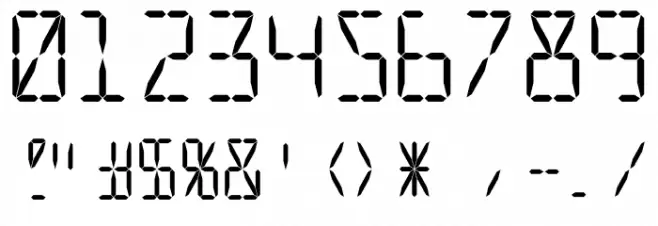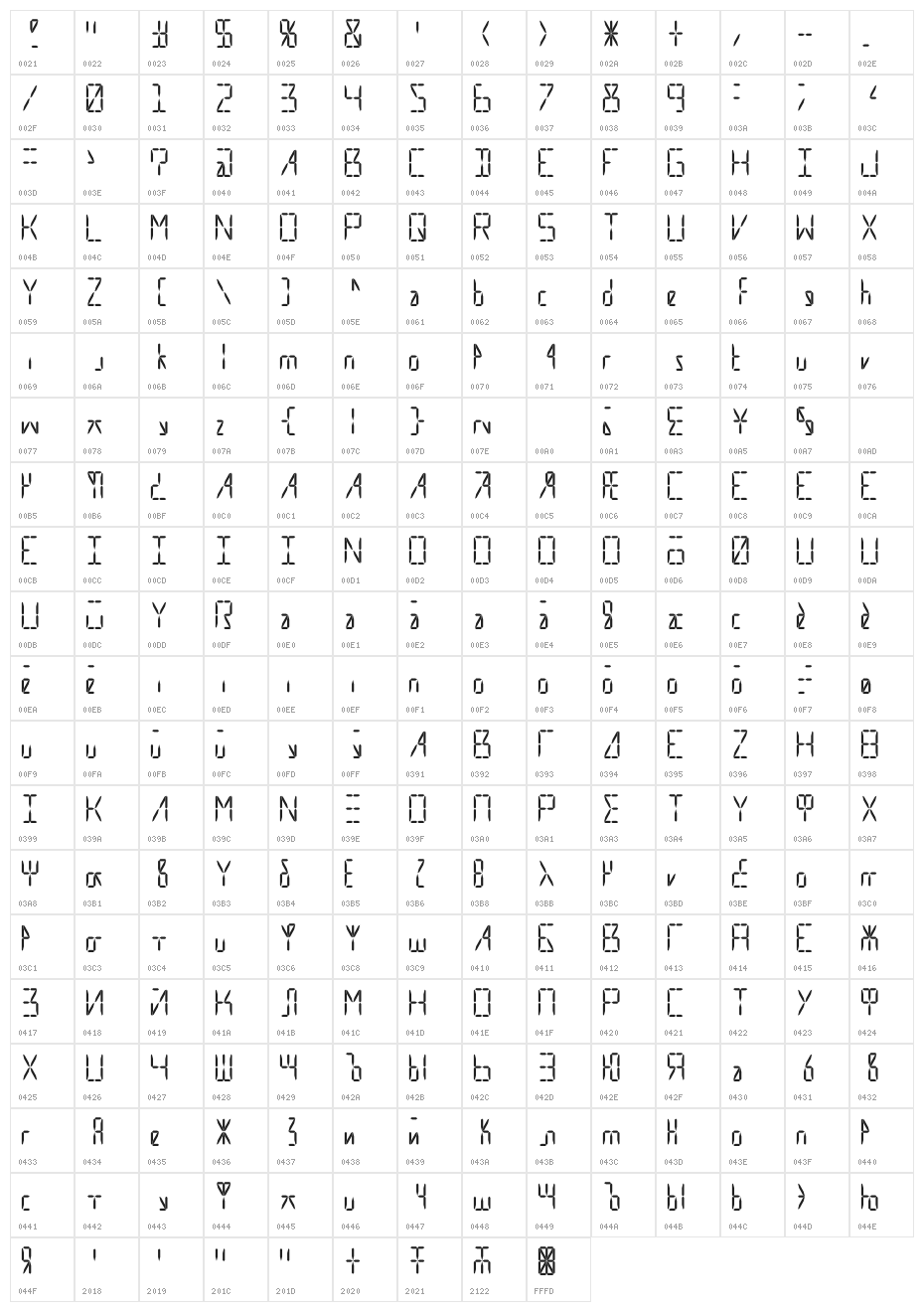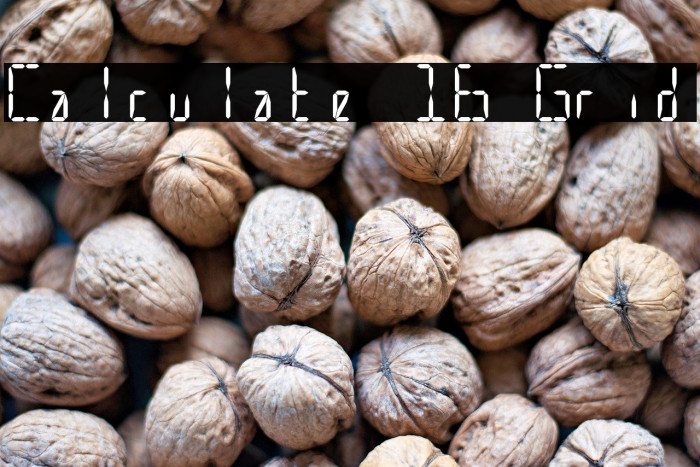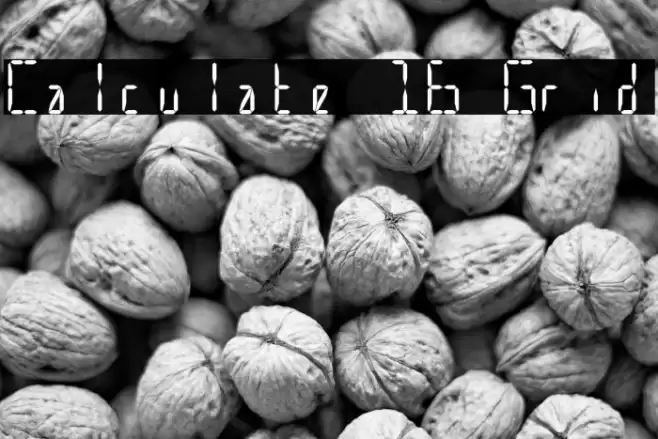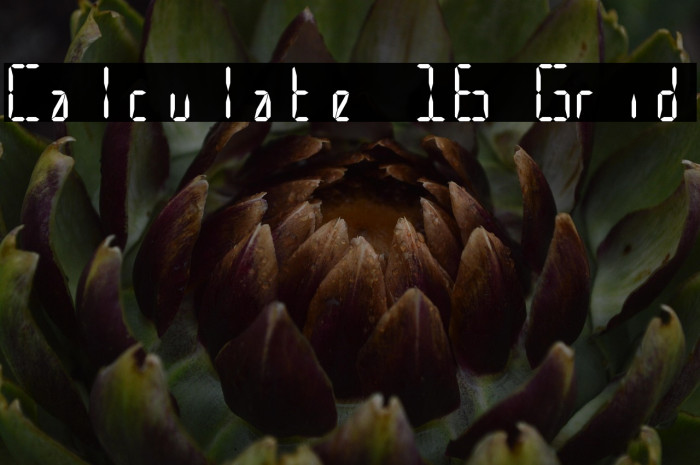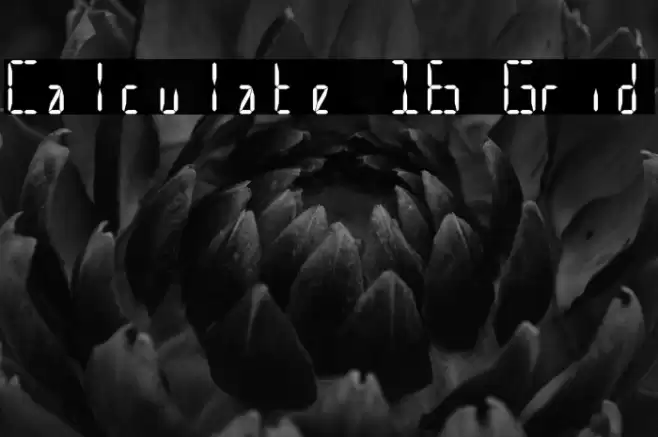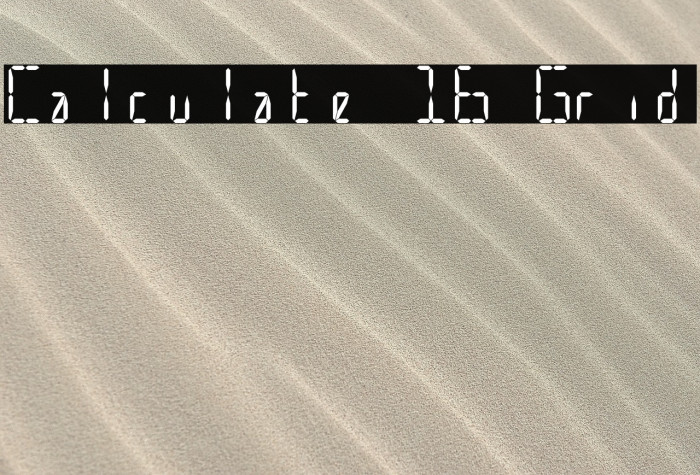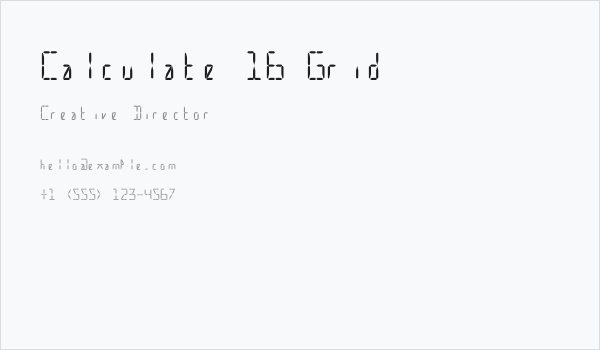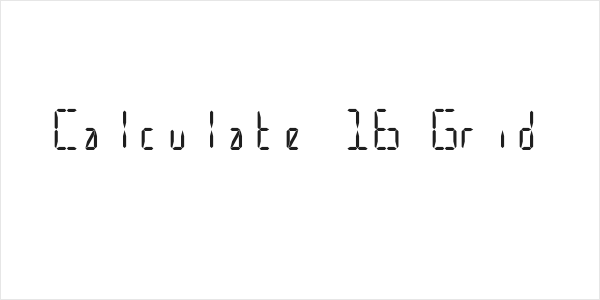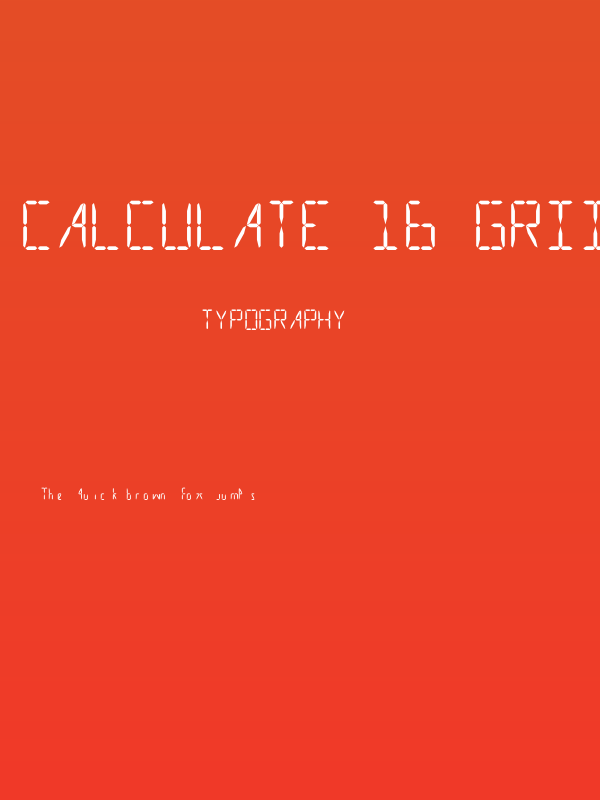
Calculate 16 Grid Font
Calculate 16 Grid Description
This font features a digital, segmented style reminiscent of classic LED displays. Each character is constructed from a series of straight lines and angles, creating a geometric and technical appearance. The uppercase and lowercase letters, as well as numbers, maintain a consistent segmented design, enhancing readability while preserving a distinct, futuristic look. The font includes a full set of numerals and a variety of special characters, all adhering to the same segmented aesthetic. This style is ideal for conveying a sense of technology and precision.
| Use Case | Headlines, Logos, Digital displays |
| Proposed Projects | Ideal for digital clocks, tech-themed posters, electronic device interfaces, and sci-fi movie titles. |